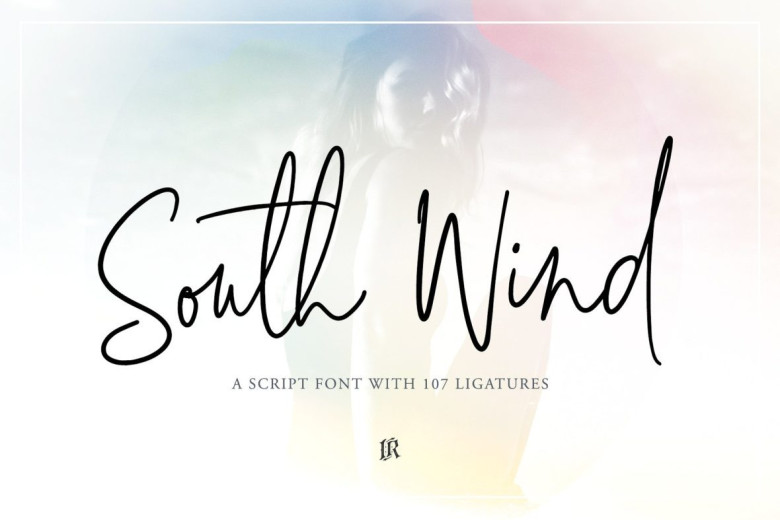
South Wind Font
South Wind Font is a handlettered font with 107 ligatures, lot of alternate characters and multilingual support. Is ideal for blog website, instagram, branding, invitations, business cards, weddings and many more.